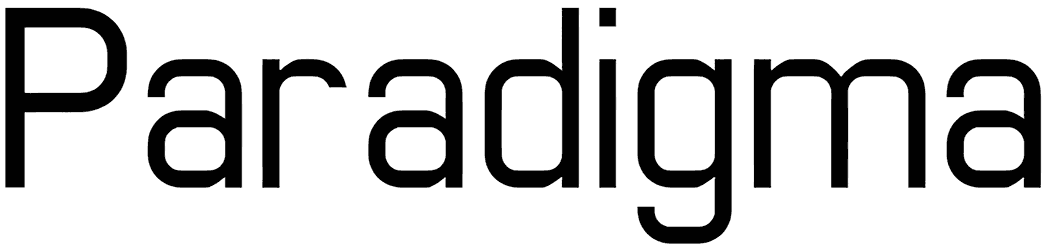
Paradigma Font
It is an undeniable fact that even at the first glance, your customers fall in love with your artwork such as posters, business cards, presentations, greeting cards, and web pages that are designed with the help of a sans serif font such as Paradigma.
Due to its uniformly straight characters and clean shapes, you can share a sense of modernity, comfort, drama, and professionalism with the audience. Considering its limitless advantages, the lack of numbers is not a serious problem.
Designed by: Human Design